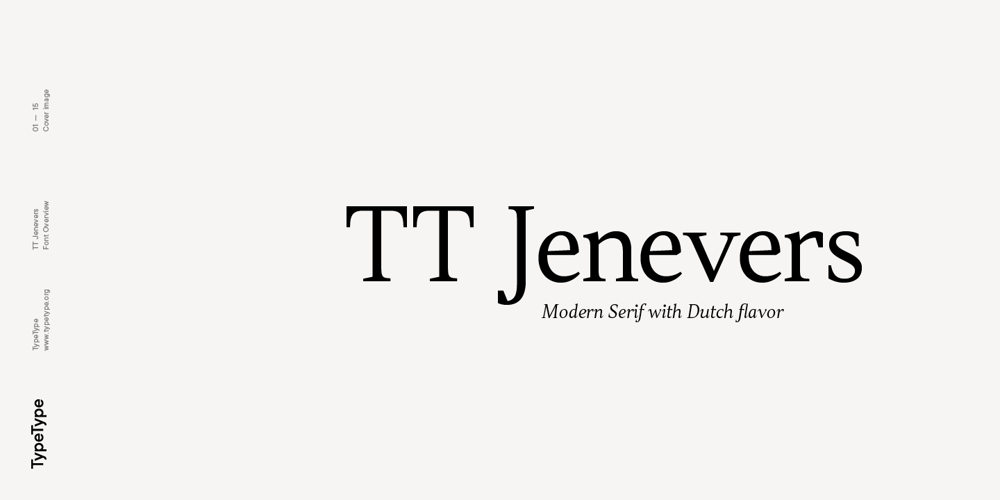
TT Jenevers
TT Jenevers font
TT Jenevers Font Family was designed by Nadezhda Polomoshnova, TypeType Team and published by TypeType. TT Jenevers contains 12 styles and family package options. TT Jenevers useful links:Specimen | Graphic presentation | Customization optionsPlease note! If you need OTF versions of the fonts, just email us at commercial@typetype.orgAbout TT Jenevers: TT Jenevers is a modern serif with Dutch flavor. The font family features the characteristic details peculiar to Dutch serifs—these are the asymmetrical shape of serifs and an irregular slant of ovals. For example, in the letter “o” there is no slant, but it is present in p-q. In TT Jenevers, both lowercase and uppercase characters are of a large size, which makes it a rather display typeface. At the same time, the big half-ellipse of the lowercase characters does not allow the letters to stick, which allows the implementation of TT Jenevers in text arrays. The italics of the TT Jenevers are slightly narrower as compared to upright faces—this is done to ensure a greater density of the text array.The italics of the TT Jenevers are slightly narrower as compared to upright faces—this is done to ensure a greater density of the text array. TT Jenevers font family consists of 12 fonts (6 upright and 6 true Italics), each of which has more than 830 characters. The typefaces include small capitals for Cyrillic and Latin alphabets, 33 ligatures, standard and old-style figures, stylistic alternates, arrows, hands, and card suits. We have prepared two dissimilar stylistic sets, which allow changing the nature of TT Jenevers to a more hand-written one, or adding a futuristic touch to the typeface. FOLLOW US:Instagram | Facebook | WebsiteTT Jenevers OpenType features: ordn, case, c2sc, smcp, frac, sups, sinf, numr, dnom, onum, tnum, pnum, lnum, liga, dlig, salt, ss01, ss02, zero.TT Jenevers language support: Acehnese, Afar, Albanian, Alsatian, Aragonese, Arumanian, Asu, Aymara, Azerbaijani, Banjar, Basque, Belarusian (cyr), Belarusian (lat), Bemba, Bena, Betawi, Bislama, Boholano, Bosnian (cyr), Bosnian (lat), Breton, Bulgarian (cyr), Cebuano, Chamorro, Chichewa, Chiga, Colognian, Cornish, Corsican, Cree, Croatian, Czech, Danish, Dutch, Embu, English, Erzya, Esperanto, Estonian, Faroese, Fijian, Filipino, Finnish, French, Frisian, Friulian, Gaelic, Gagauz (lat), Galician, Ganda, German, Gusii, Haitian Creole, Hawaiian, Hiri Motu, Hungarian, Icelandic, Ilocano, Indonesian, Innu-aimun, Interlingua, Irish, Italian, Javanese, Jola-Fonyi, Judaeo-Spanish, Kalenjin, Karachay-Balkar (lat), Karaim (lat), Karakalpak (lat), Kashubian, Kazakh (lat), Khasi, Khvarshi, Kinyarwanda, Kirundi, Komi-Permyak, Komi-Zyrian, Kongo, Kumyk, Kurdish (lat), Ladin, Latvian, Laz, Leonese, Lithuanian, Luba-Kasai, Luganda, Luo, Luxembourgish, Luyia, Macedonian, Machame, Makhuwa-Meetto, Makonde, Malay, Maltese, Manx, Maori, Mauritian Creole, Minangkabau, Moldavian (lat), Montenegrin (lat), Mordvin-moksha, Morisyen, Nahuatl, Nauruan, Ndebele, Nias, Nogai, Norwegian, Nyankole, Occitan, Oromo, Palauan, Polish, Portuguese, Quechua, Rheto-Romance, Rohingya, Romanian, Romansh, Rombo, Rundi, Russian, Rusyn, Rwa, Salar, Samburu, Samoan, Sango, Sangu, Sasak, Scots, Sena, Serbian (cyr), Serbian (lat), Seychellois Creole, Shambala, Shona, Silesian, Slovak, Slovenian, Soga, Somali, Sorbian, Sotho, Spanish, Sundanese, Swahili, Swazi, Swedish, Swiss German, Tagalog, Tahitian, Taita, Talysh (lat), Tatar, Teso, Tetum, Tok Pisin, Tongan, Tsakhur (Azerbaijan), Tsonga, Tswana, Turkish, Turkmen (lat), Udmurt, Ukrainian, Uyghur, Vastese, Vepsian, Volapük, Võro, Vunjo, Welsh, Wolof, Xhosa, Zaza, Zulu.